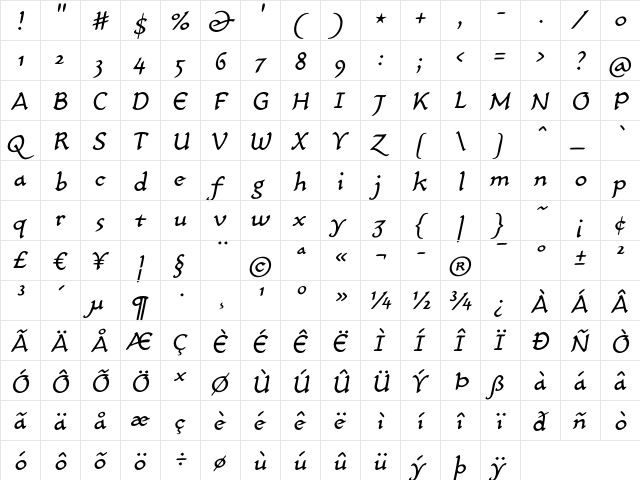
CarlinScript LT Std Italic Regular Font Preview
| Foundry | Linotype Library GmbH |
| Designer | Hans-Jn Ellenberger |
Design Context for CarlinScript LT Std Italic Typeface
CarlinScript LT Std Italic flows with the natural rhythm of handwritten lettering, making it ideal for designs that call for warmth and personal expression. Its slender proportions lend an understated elegance to any composition.
Font Pairing: Combine CarlinScript LT Std Italic with a simple geometric sans for maximum contrast — the tension between flowing curves and clean structure is a classic typographic pairing.
Pro Tip: Pair CarlinScript LT Std Italic with a clean sans-serif for supporting text. The contrast between fluid script and geometric structure creates an elegant typographic hierarchy.